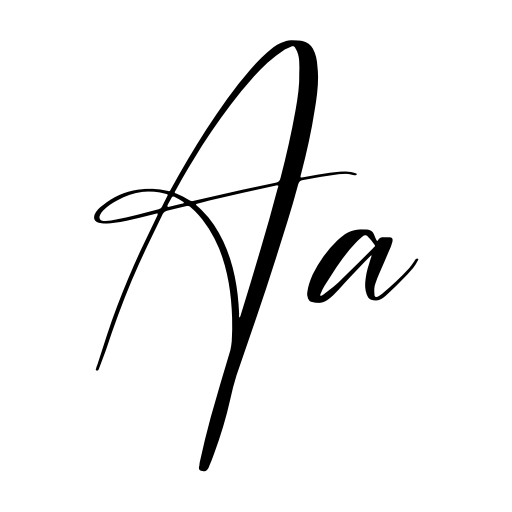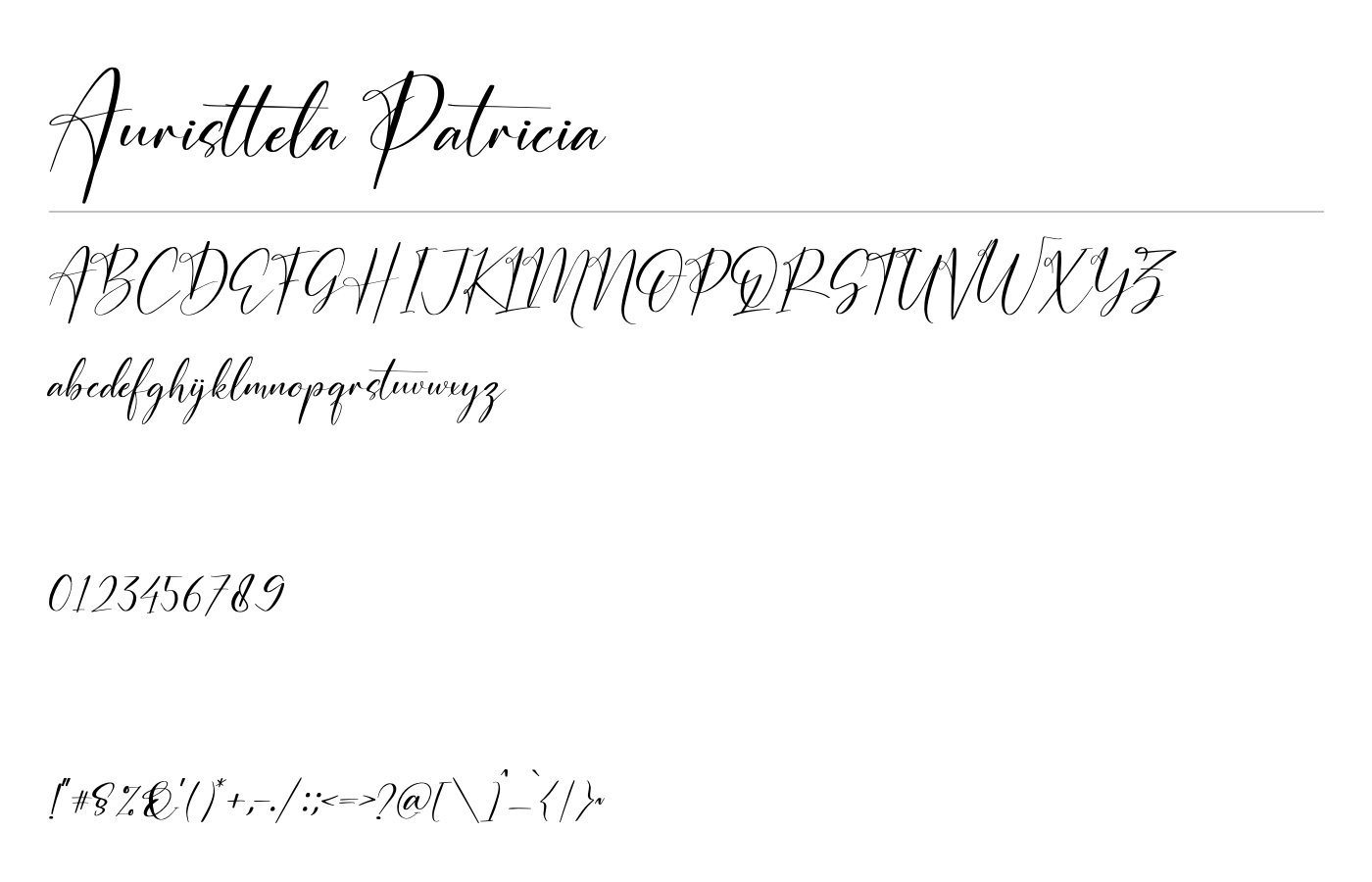
Auristtela Patricia is an elegant, thin script font characterized by refined, flowing lines and a graceful, modern calligraphic style. Its delicate strokes and elaborate uppercase swashes evoke a sophisticated and feminine feel, making it ideal for wedding invitations, luxury branding, and stylish editorial headlines where a touch of elegance and personal charm is desired.
Auristtela Patricia Font
About Auristtela Patricia Font